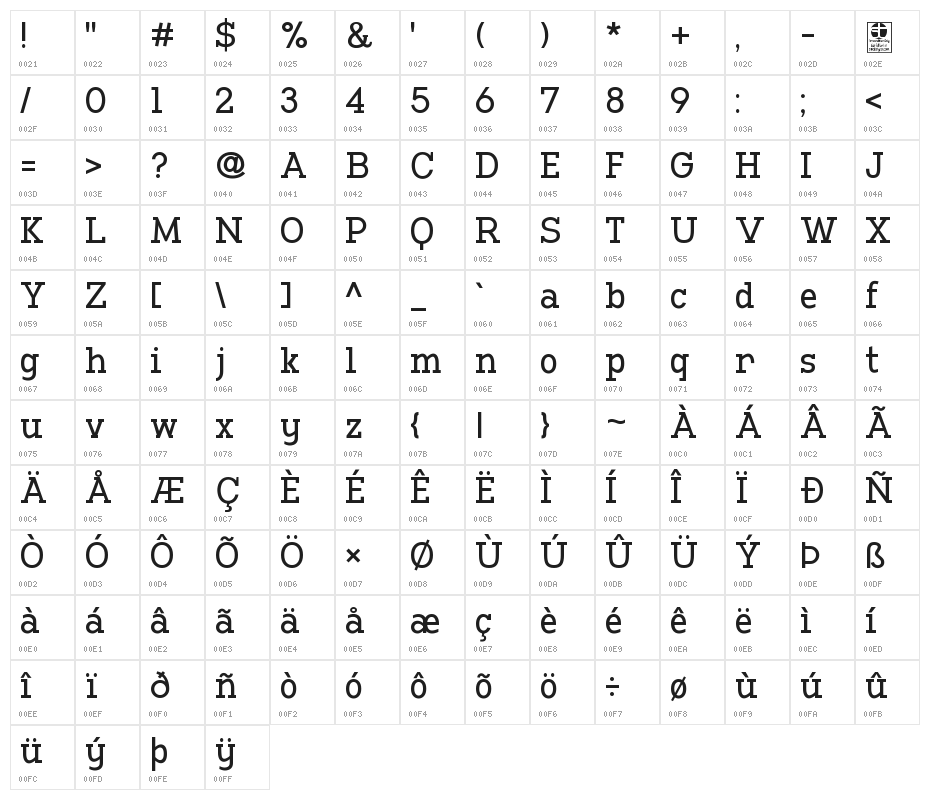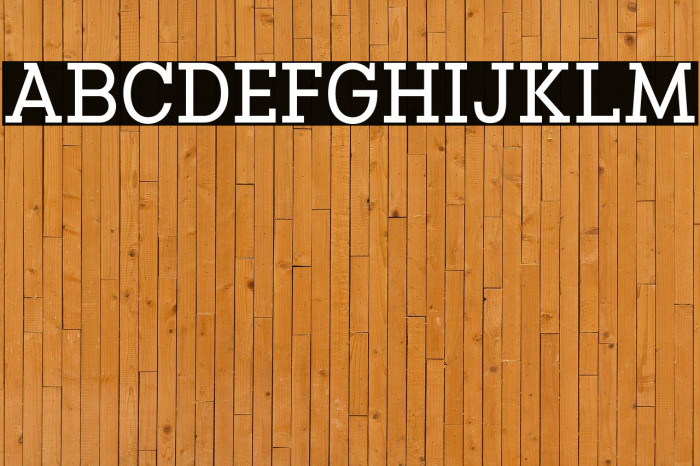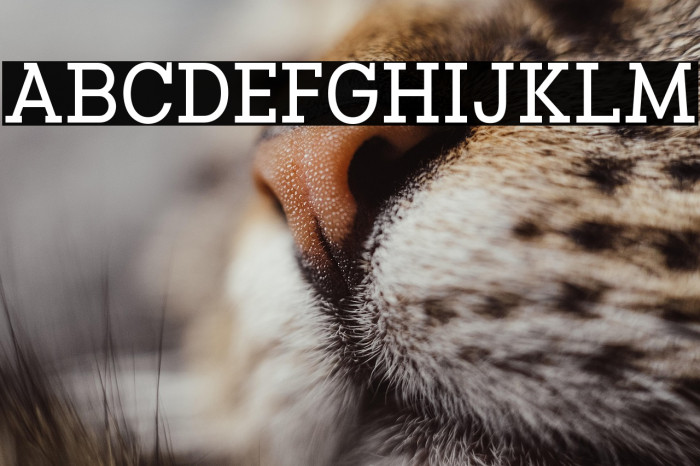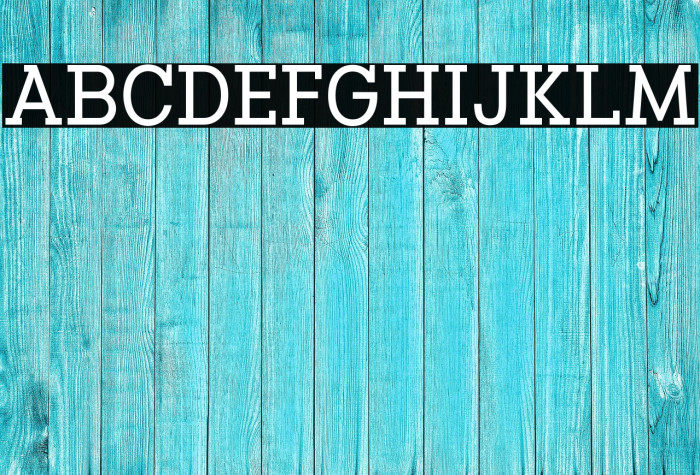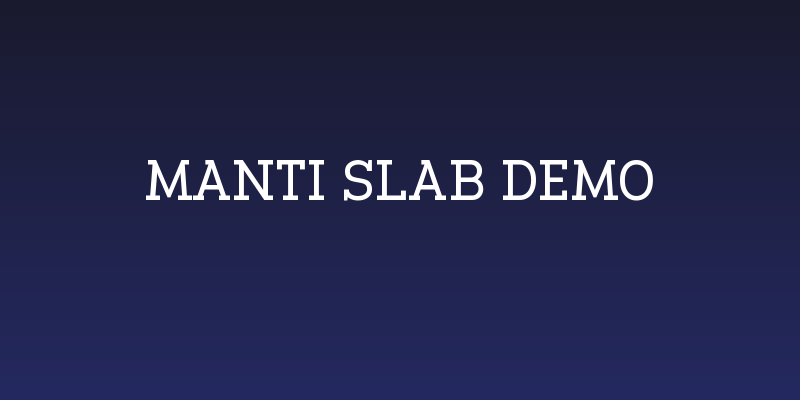
Manti Slab Demo Font
Manti Slab Demo Description
This font features a robust and structured design with slab serifs that provide a strong and authoritative presence. The uppercase letters are bold and commanding, while the lowercase letters maintain a consistent weight, offering a harmonious balance. The numerals are clear and legible, making them suitable for various applications. The special characters are distinct and well-defined, ensuring versatility in usage. Overall, this font exudes a classic yet modern appeal, making it ideal for projects that require a touch of sophistication and clarity.
| Use Case | Headlines, Logos, Signage |
| Proposed Projects | Ideal for branding, editorial design, signage, and web design projects. |